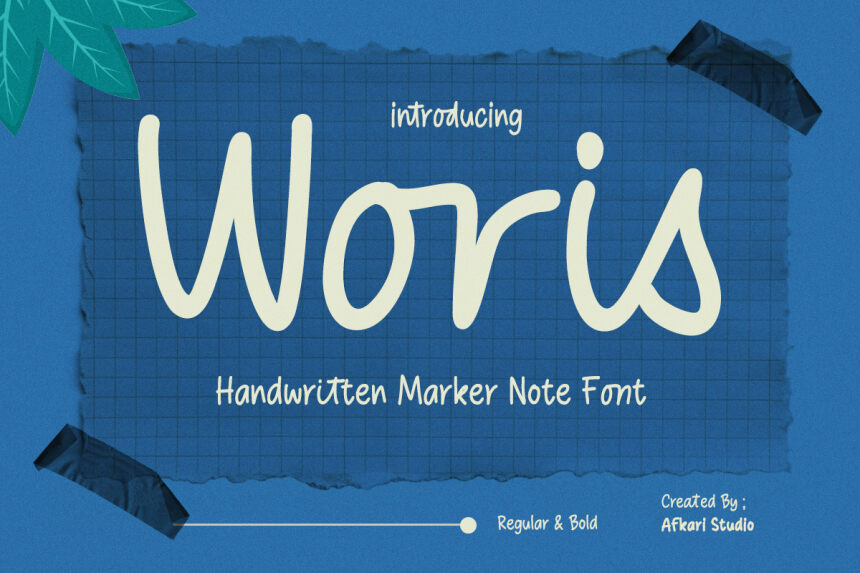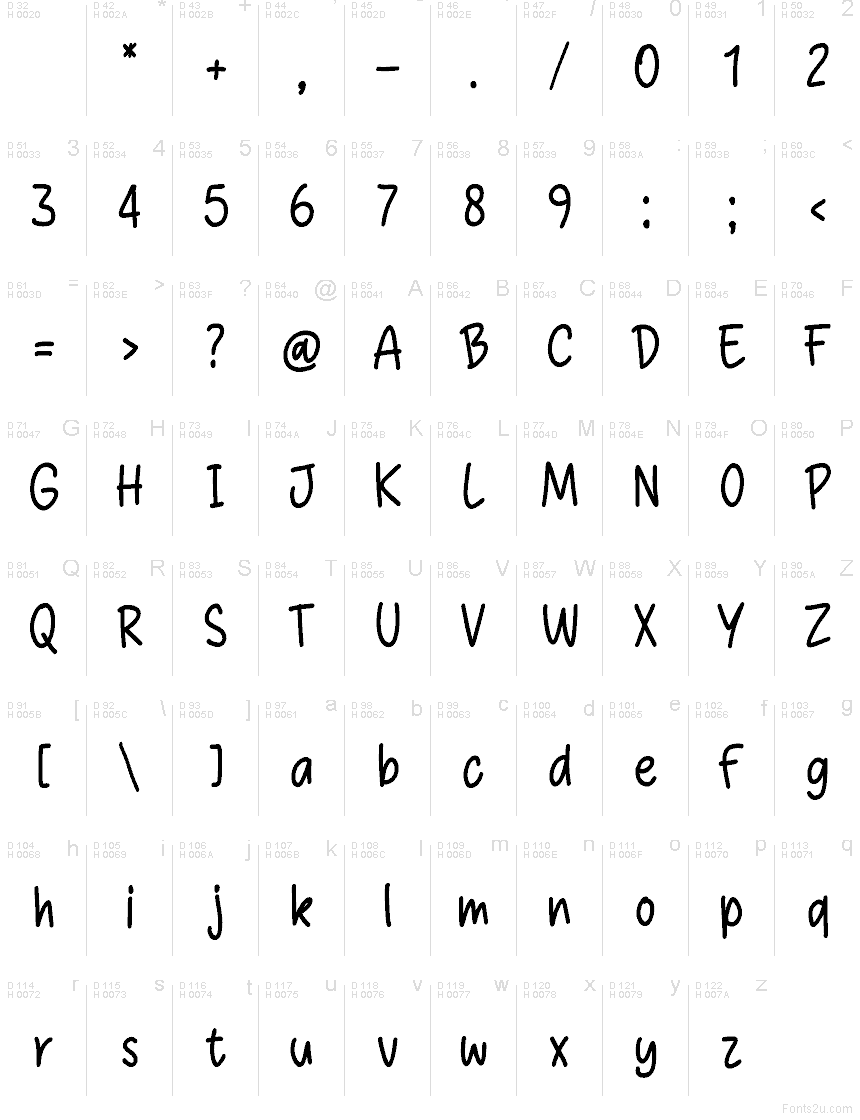
Woris, by Afkari Studio, is a free handwritten font with a loose marker-drawn feel. The letters have thick, rounded strokes and a relaxed bounce that makes the wordshape feel friendly rather than neat, with soft curves and slightly uneven rhythm giving it an easy, human pulse.